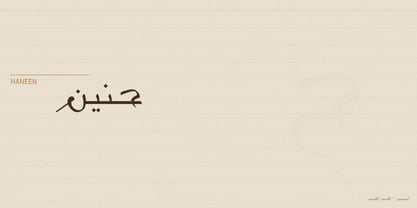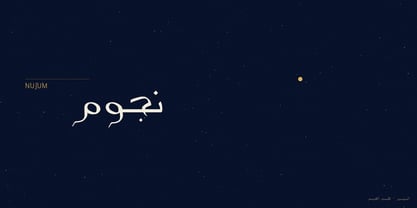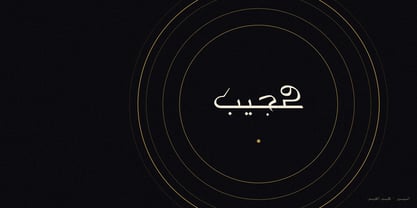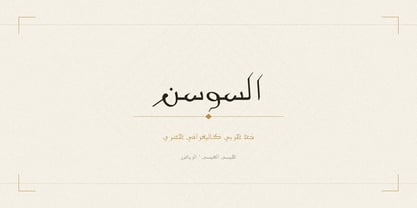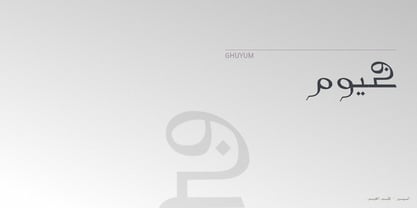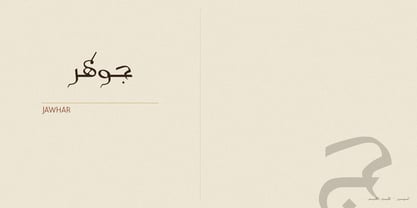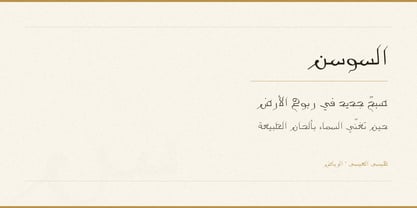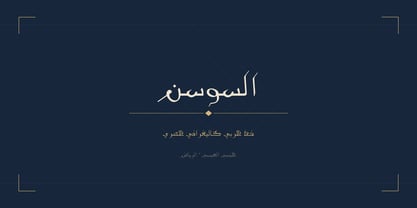
AlSawsan
AlSawsan is a contemporary Arabic display typeface that bridges the fluidity of classical calligraphy with the restraint of modern design. The name Sawsan — meaning lily in Arabic — is also a traditional Arabic feminine name, continuing designer Eisa AlEisa's series of Arabic display typefaces
The defining characteristic of AlSawsan is its calligraphic-monolinear approach: the letterforms follow the natural movement of a hand holding a pen, with free-flowing curves and organic rhythm, but without the thick-thin stroke contrast of traditional calligraphy. The result is a typeface that feels handwritten yet refined , expressive without being decorative.
The design draws its strongest identity from letters with wide open counters and generous curves: ح (ha), ج (jeem), and ع (ain) serve as the typographic anchors of the alphabet, establishing the spatial generosity that defines the entire family. Every other letterform was designed to maintain this same balance between ink and white space.
Design Uses
AlSawsan is built for display and headline use. It excels in brand identity for luxury, lifestyle, beauty, and cultural products , particularly where an Arabic name or phrase needs to carry both elegance and authenticity. It pairs naturally with clean sans-serif Latin companions for bilingual branding, editorial spreads, packaging, and signage.
Character Set & Features
The typeface supports the full Arabic script with all four positional forms (isolated, initial, medial, final), complete vowel marks (harakat) with accurate GPOS anchor positioning, lam-alef ligatures, and Arabic-Indic numerals. A Latin companion character set is included. OpenType features include ccmp, init, medi, fina, rlig, liga, mark, mkmk, and kern — ensuring correct shaping across all major Arabic text rendering environments including web browsers, Adobe applications, and mobile platforms.
About Eisa AlEisa
Eisa AlEisa is an independent type foundry from Riyadh, Saudi Arabia , the studio of artist and type designer Eisa AlEisa. Most releases begins as an ink drawing on paper: letterforms shaped by hand long before they become digital curves, which gives the work a warmth and rhythm rooted in the visual culture of the Gulf. The foundry focuses on original Arabic type , contemporary designs with real personality, careful joins, deep bowls, and stems cut with a single confident chamfer. Each typeface is drawn to hold its character at display sizes and stay readable in text. The last release, Aljawhara, takes its name from the Arabic word for "the jewel."